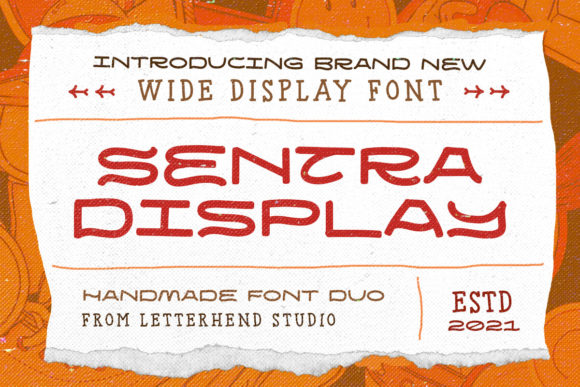
Step into a world of whimsical charm and vintage aesthetics with Sentra Font, an enchanting display font crafted by the talented letterhend. This captivating typeface exudes a playful and nostalgic vibe, making it the perfect choice for creating captivating children's books.
Sentra's meticulously designed characters dance and flow, bringing life to your stories and engaging young readers with their captivating charm. Its simple yet visually impactful design effortlessly captures attention, making your creations stand out from the crowd.
With Sentra Font, you can weave tales of adventure, magic, and enchantment, transporting your readers to fantastical realms where imagination knows no bounds. Its versatile nature lends itself to a wide range of applications, from storybooks and picture books to educational materials and playful invitations.
Unleash your creativity and craft captivating designs that resonate with children's hearts. Let Sentra Font guide you on a journey of storytelling, evoking emotions, and creating cherished memories that will last a lifetime.